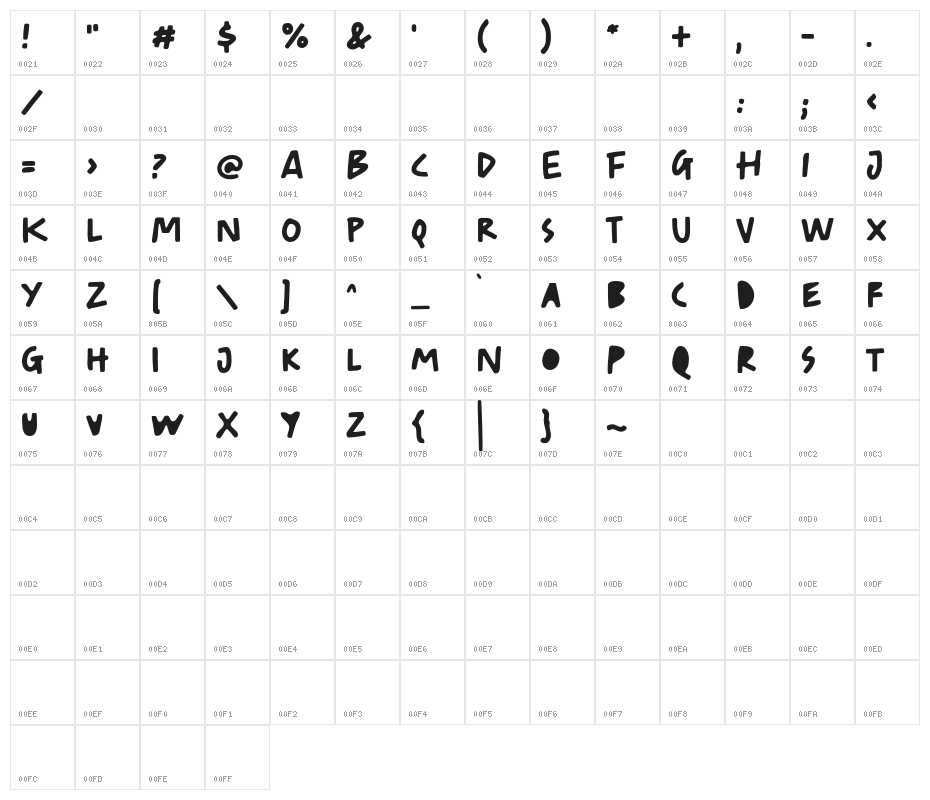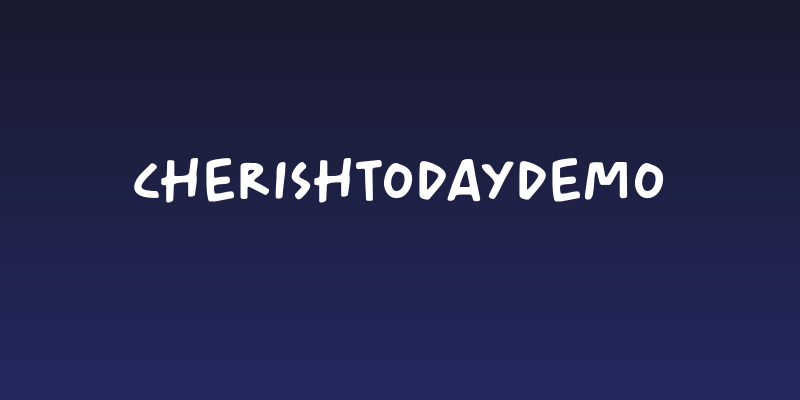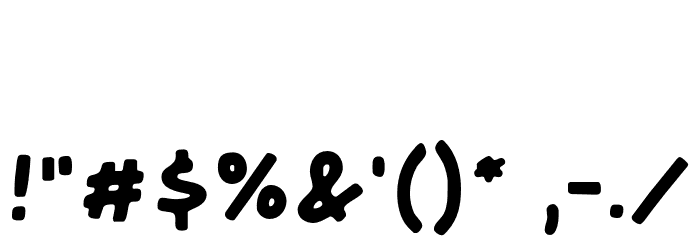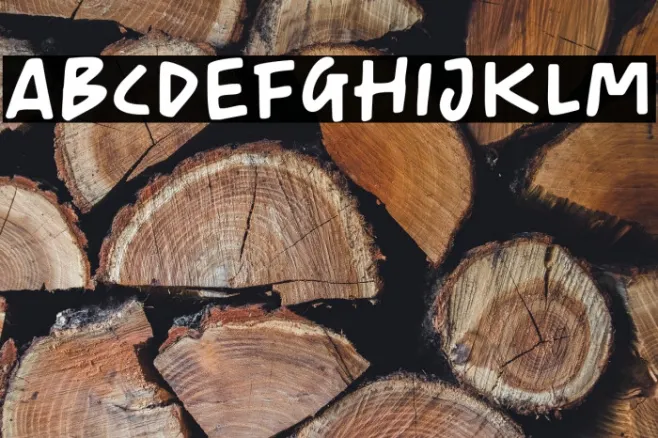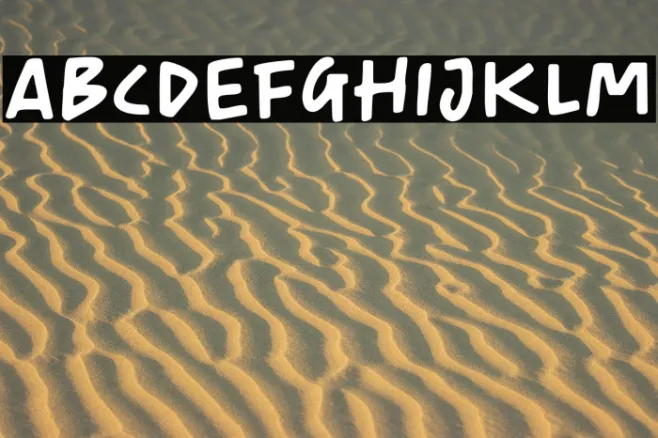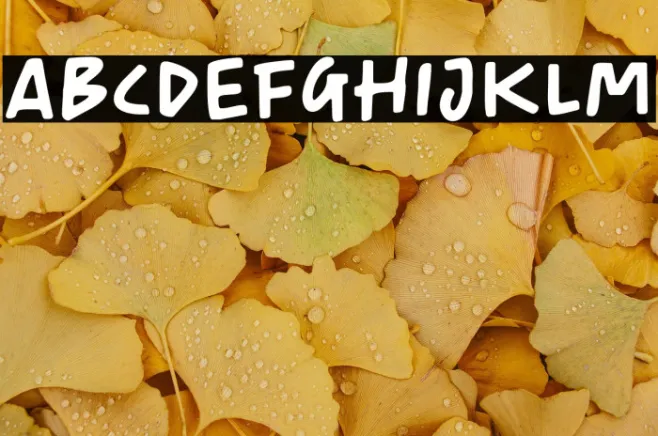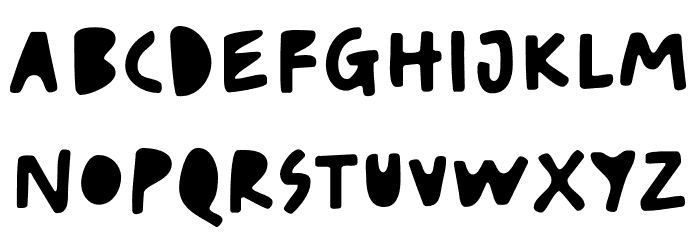
CherishTodayDEMO Font
CherishTodayDEMO Description
This font features a playful and bold handwritten style, characterized by its thick strokes and slightly irregular shapes. The uppercase letters are prominent and exude a sense of fun and creativity, making them ideal for projects that require a personal touch. The lowercase letters maintain the same playful essence, with a consistent stroke weight that ensures readability. The numbers and special characters are crafted with the same attention to detail, providing a cohesive look across all characters. This font is perfect for adding a whimsical and informal vibe to any design.